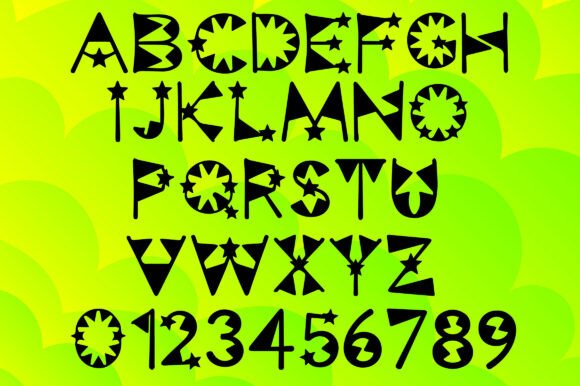
Introduction to Party Joy Font
Party Joy is a bold decorative display font with playful geometric shapes and star accents.
Its festive, whimsical style makes it perfect for party themes, kids’ projects, posters, branding, and fun creative designs .
Key Features of Party Joy Font
Why Choose Party Joy Font?